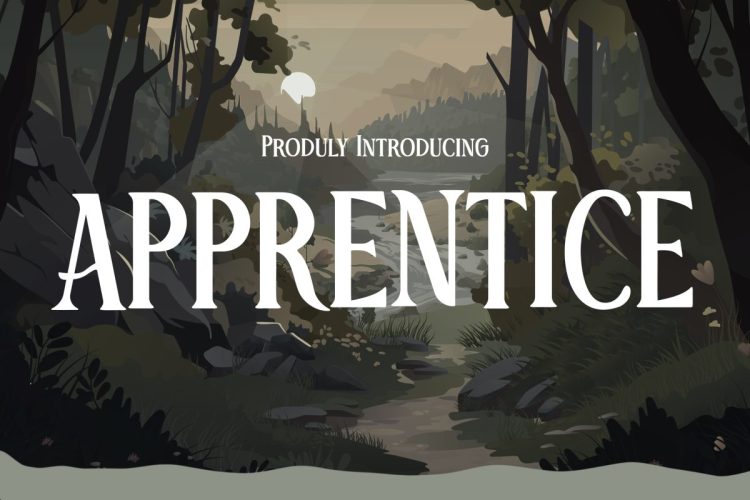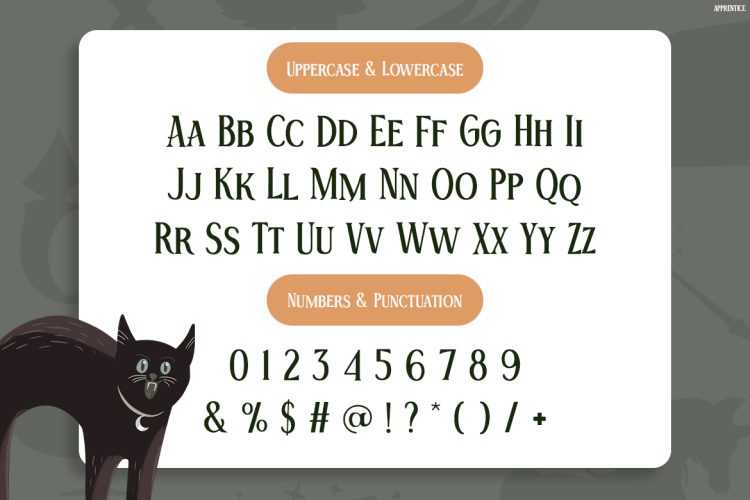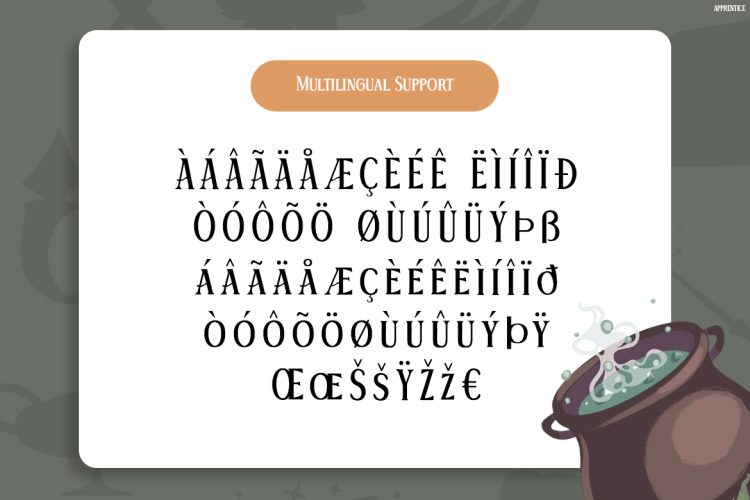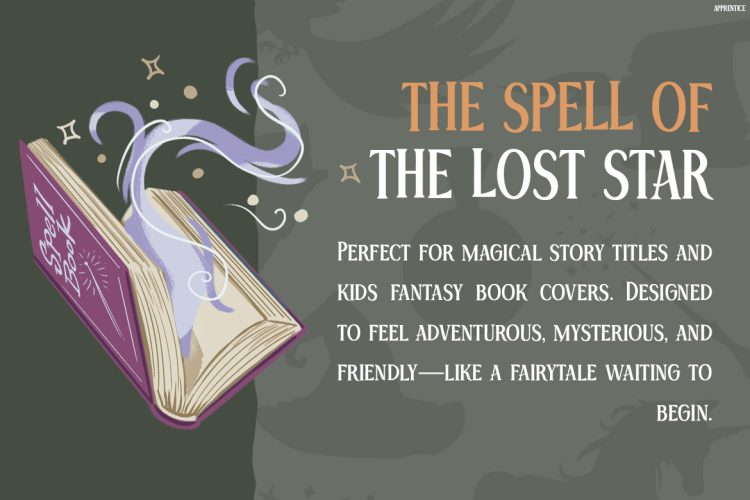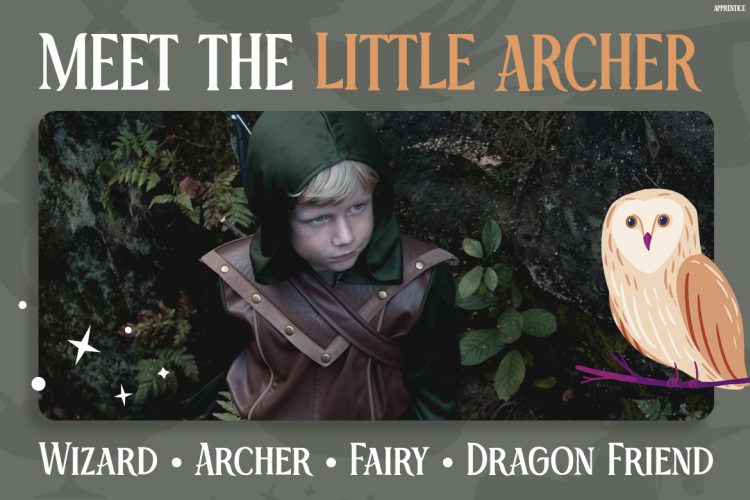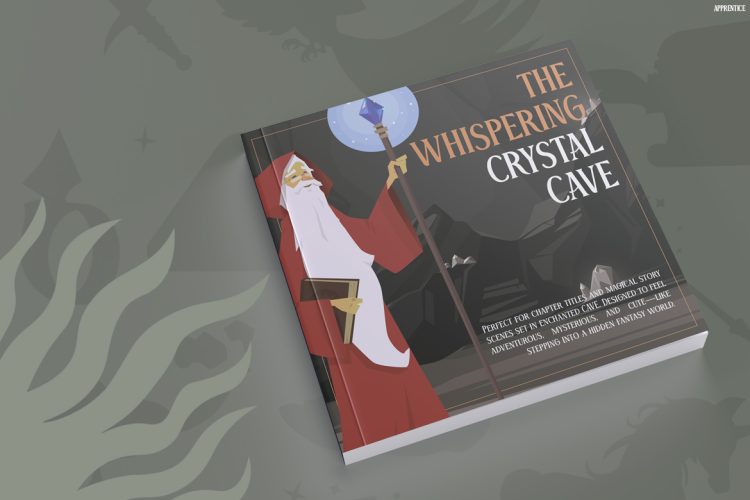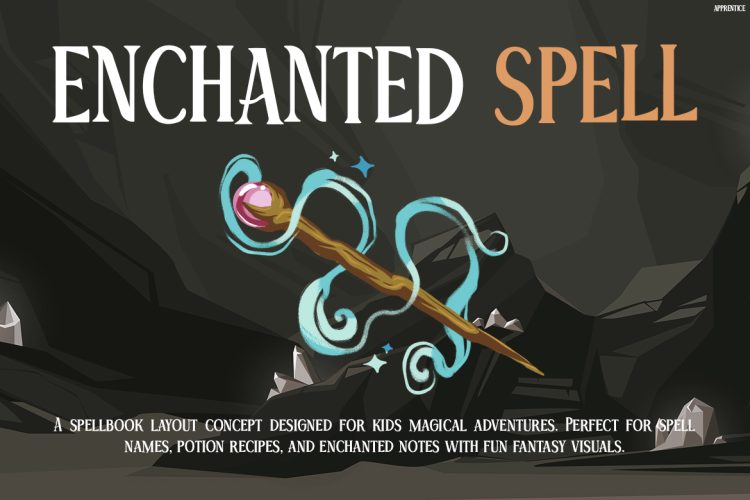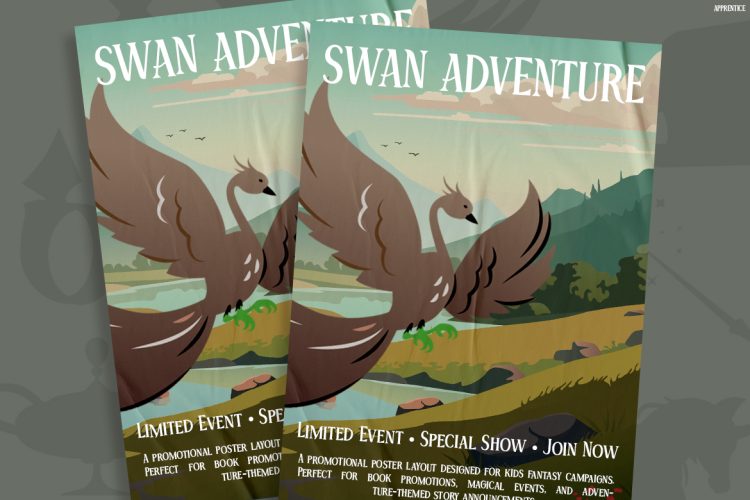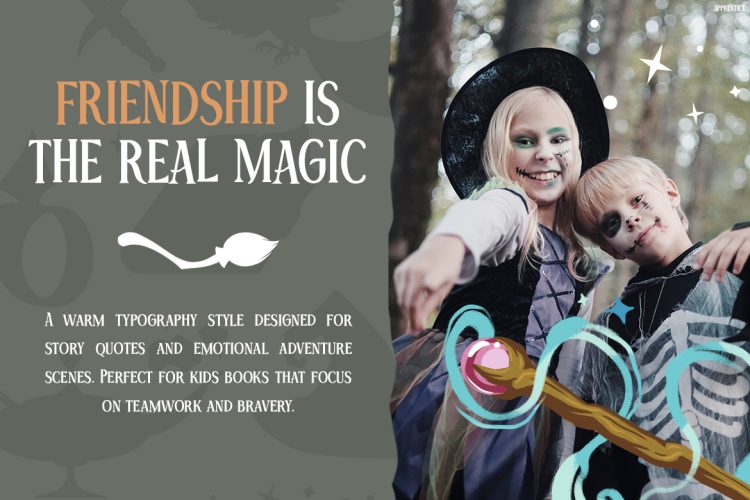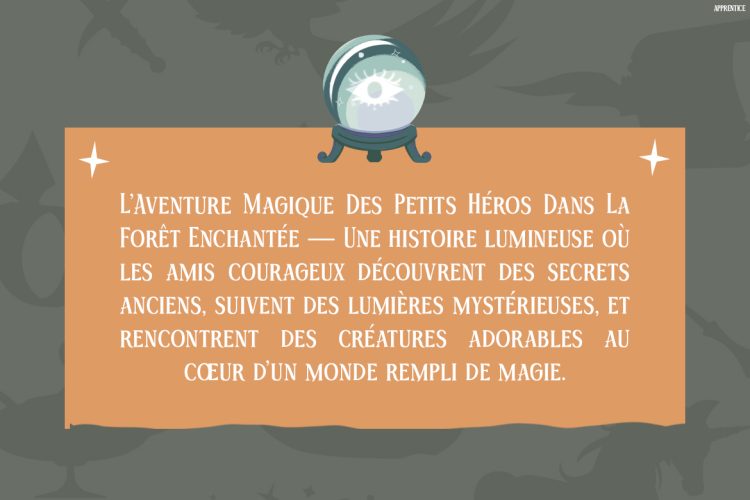
Apprentice โ Magical Fantasy Kids Font
Kids Font Apprentice is a magical display font inspired by fantasy adventures, enchanted forests, and legendary storybooks. Designed with sharp medieval-style letterforms and playful fantasy energy, this font instantly creates a mysterious and imaginative atmosphere. Every character feels bold, artistic, and full of adventure. Moreover, the unique serif details give Apprentice a classic fantasy aesthetic while still keeping the font readable and fun for modern creative projects. Its strong visual style makes titles stand out beautifully across posters, book covers, games, and themed branding. In addition, the handcrafted fantasy appearance adds emotional depth and cinematic charm to every design.
Why Kids Font Apprentice Stands Out
Apprentice combines magical storytelling vibes with strong display readability. The font delivers a dramatic fantasy look without becoming difficult to read. Furthermore, its decorative serif shapes create an authentic medieval-inspired style that feels adventurous and immersive. Because of its bold structure, Apprentice works perfectly for headlines, logos, and creative typography projects. Meanwhile, the font remains versatile enough for both playful childrenโs themes and darker fantasy concepts. It also includes Multilingual Support for 67 Languages, allowing creators from different regions to design without limitations. Therefore, Apprentice becomes an excellent choice for international creative branding and storytelling projects.
Apprentice is ideal for childrenโs book authors, fantasy game creators, movie poster designers, educators, toy brands, and imaginative content creators. In addition, the font works beautifully for fantasy book covers, magical event posters, RPG game titles, YouTube thumbnails, cafรฉ branding, themed packaging, cosplay events, adventure camps, classroom projects, and enchanted merchandise. Whether you are designing for kids or fantasy-loving audiences, Apprentice helps your visuals feel magical, cinematic, and unforgettable.
Bring Fantasy Worlds to Life
Make every design feel like the beginning of an epic adventure with Apprentice. Not only does the font create strong visual impact, but it also builds an emotional fantasy atmosphere that captures attention instantly. As a result, your projects look more immersive, creative, and memorable. So, if you want a display font filled with magic, adventure, and storytelling energy, Apprentice is the perfect choice. Get Kids Font Apprentice today and turn your creative ideas into enchanting visual worlds.